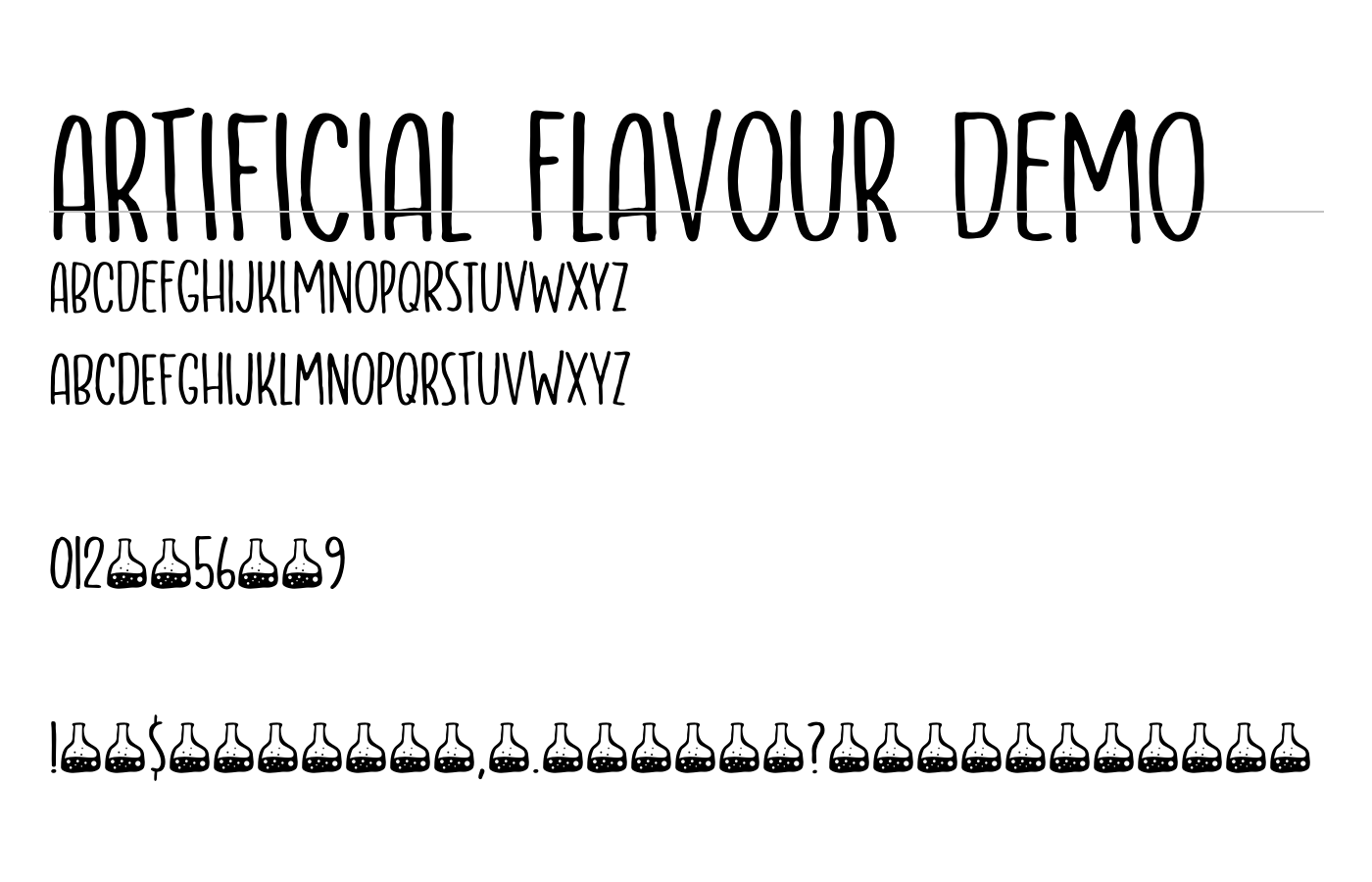
Artificial Flavour DEMO is a playful, narrow sans serif font with tall, hand-drawn letterforms that convey a quirky, casual vibe. Its irregular shapes and creative inclusion of unique flask-shaped glyphs give it a fun, experimental personality, making it perfect for projects needing a lighthearted or whimsical touch. This font works well in creative branding, posters, and children’s materials where an informal, distinctive style is desired.
Artificial Flavour DEMO Font
About Artificial Flavour DEMO Font
| Font family | Artificial Flavour DEMO Font |